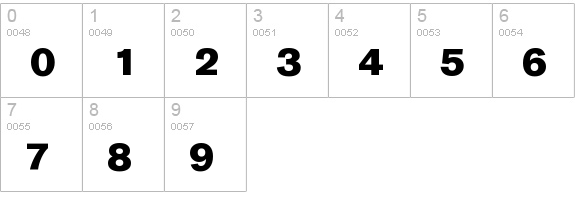
Ancona-Black-Regular is a maximum-weight, dramatic variant in the Ancona typeface family \xE2\x80\x94 well suited to maximum-impact headlines, posters, and packaging.